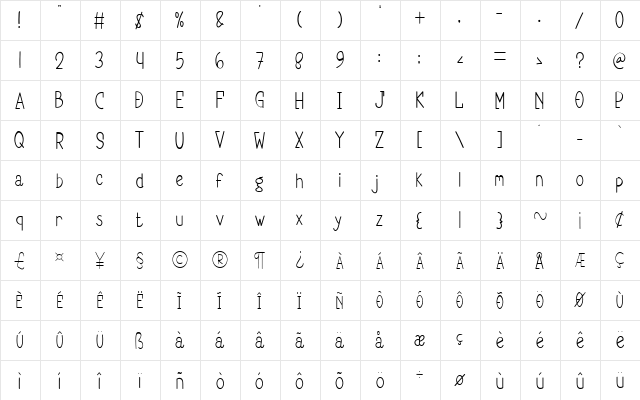
Second Date Regular
Design Context for Second Date Typeface
Second Date takes a measured approach to typography — its balanced proportions and neutral character make it a reliable workhorse for both digital and print work. Its narrow stance lets it pack a punch even in space-constrained designs.